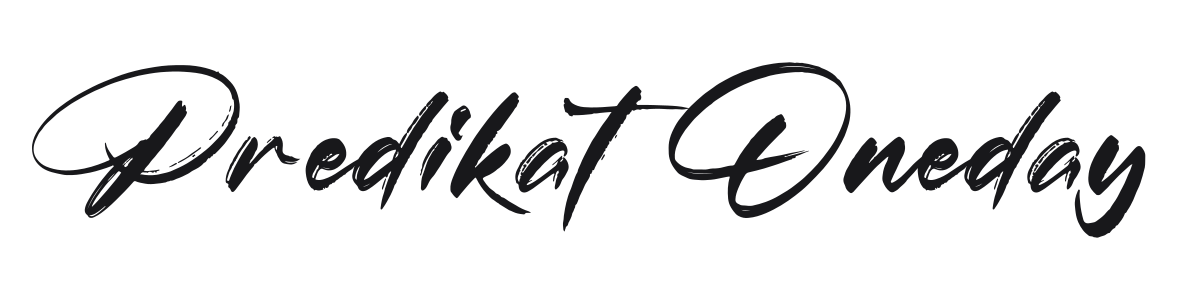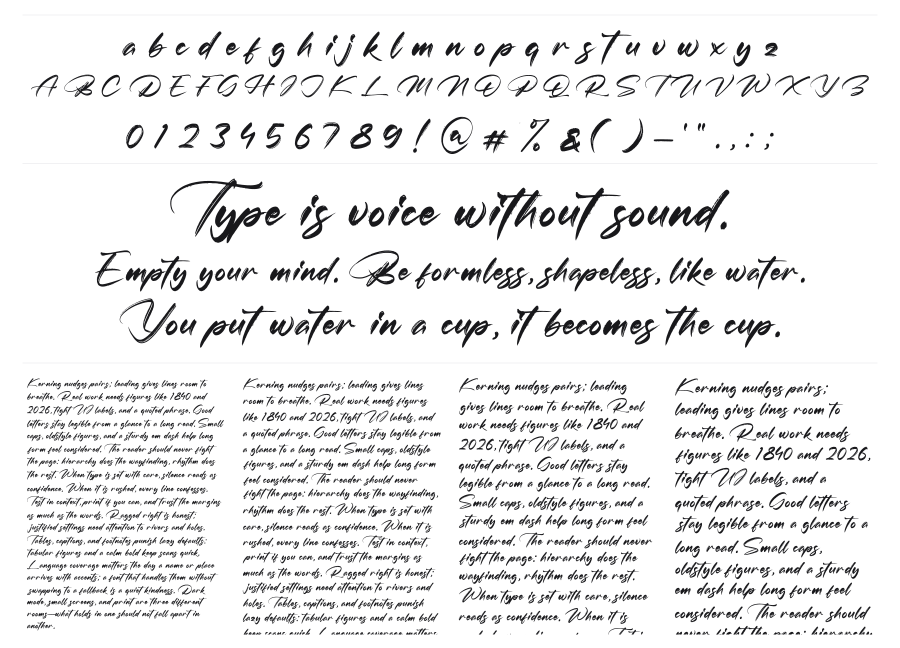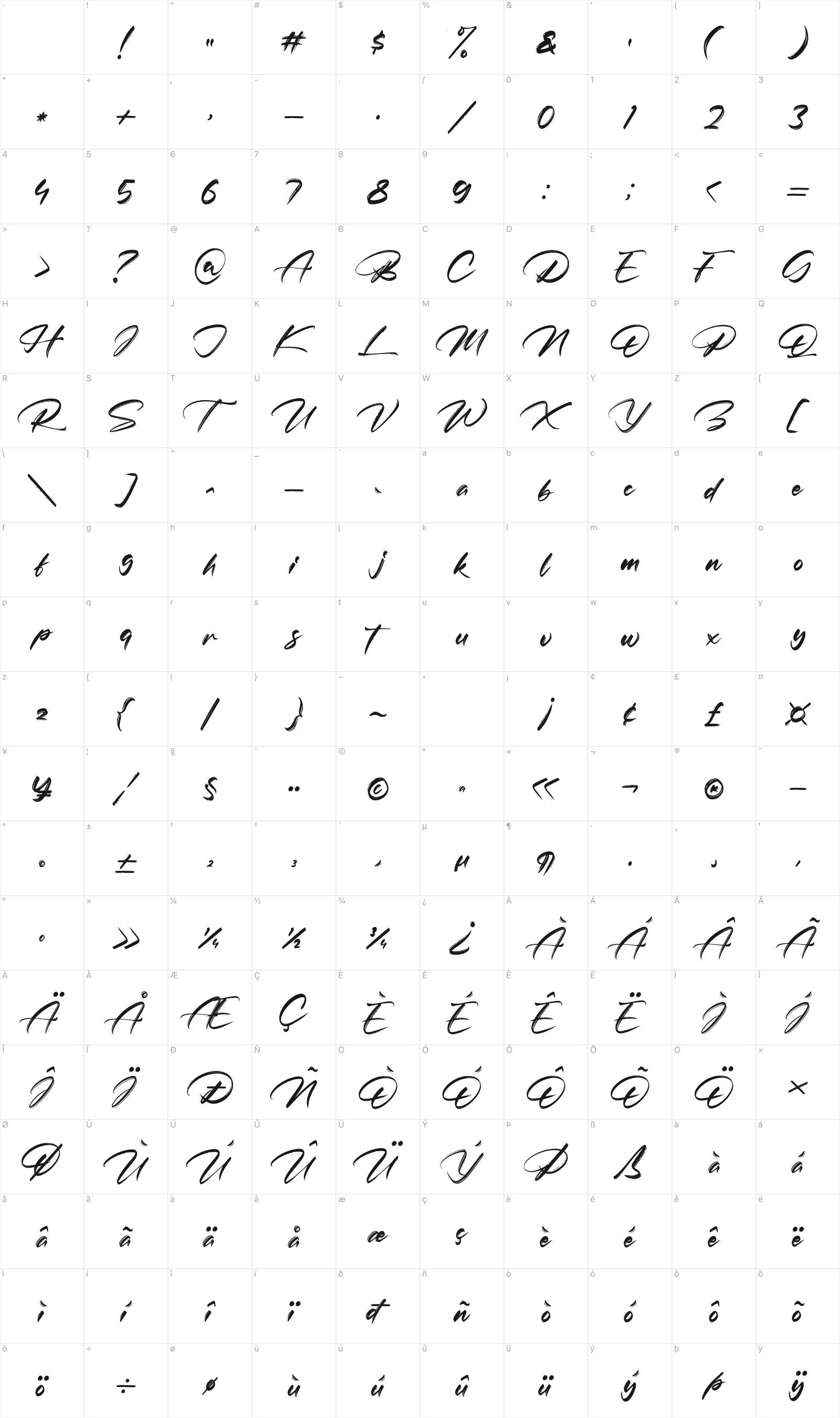
Predikat Oneday
by Integritype Studio
Predikat Oneday is a bold brush script with the raw energy of hand-painted lettering, built on thick ink strokes that taper into wispy hairlines. Rough, frayed brush endings and subtle baseline shifts give it an authentic, hand-made character rather than a polished calligraphic feel. It works best large, where the texture and spontaneity can breathe.